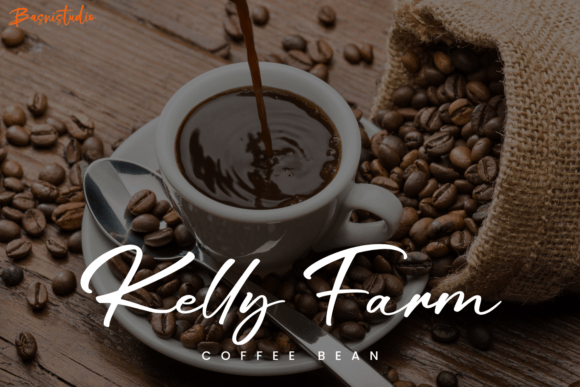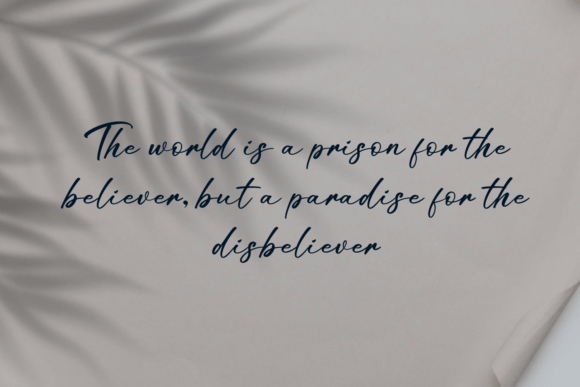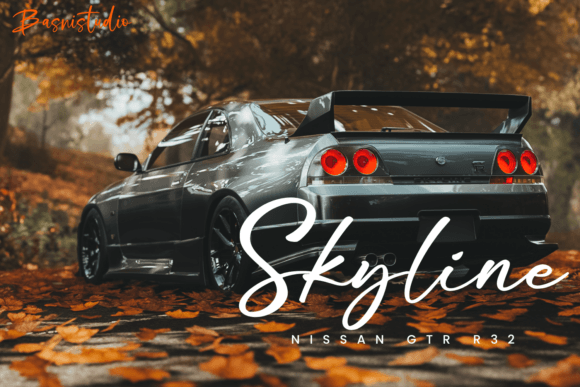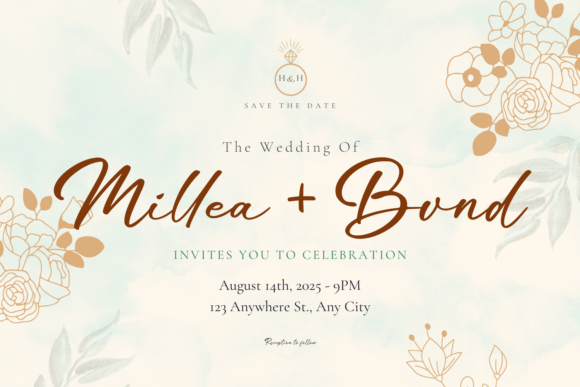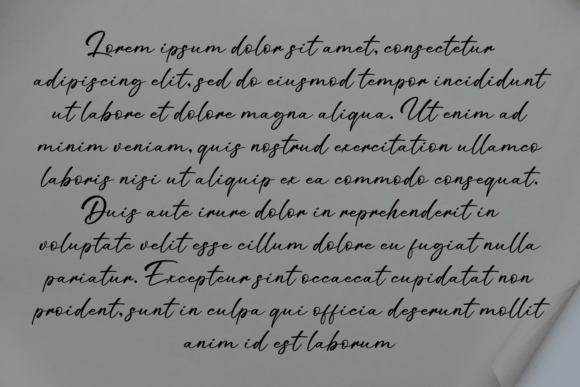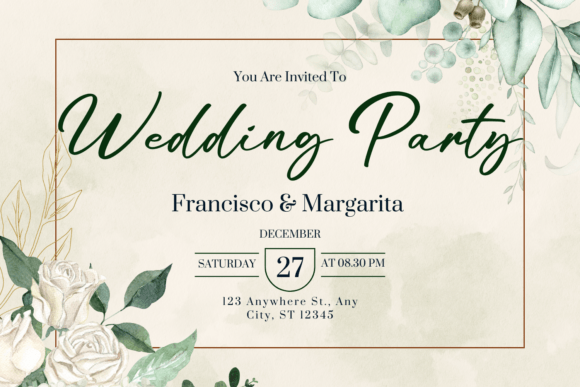
Introduction to Killian Sagitisa Font
As designers, we’ve all been there – staring at a blank page, trying to conjure up the perfect idea for a creative project. Sometimes, all it takes is the right font to spark inspiration. And that’s exactly what the Killian Sagitisa Font can do. With its elegant touch and timeless style, this flowing handwritten font is sure to captivate your audience and elevate your designs to the next level.
Whether you’re working on a personal project or a client’s design, having a high-quality font like Killian Sagitisa Font in your arsenal can make all the difference. It’s a valuable resource that can help you create stunning visuals, from logos to typography, and even provide a free download option for your convenience.
Key Features of Killian Sagitisa Font
- Unique, elegant script font with a transparent background, suitable for various design applications.
- Perfect for designers and artists looking for a sophisticated, handwritten font to elevate their creative project.
- Supports a wide range of languages, making it a versatile design resource for global creative projects.
Honest Review: Killian Sagitisa Font
I recently had the chance to experiment with the Killian Sagitisa Font, and I must say it’s been a great addition to my design resource collection. The free download was a bonus, and I was excited to see how it would perform in my creative project.
The first thing that caught my attention was the unique and elegant design of the font. The combination of sleek lines and sophisticated curves makes it perfect for titles and headings. ✨ I especially appreciate the transparent background, which gives me more flexibility when working with layered designs.
- Wide range of styles and weights to choose from
While the Killian Sagitisa Font is a solid choice, I did encounter a few limitations:
- Some of the styles may not be compatible with older software
- The font may not be as versatile as some other options
Overall, I’m impressed with the Killian Sagitisa Font, and I would definitely recommend it to designers looking for a high-quality, elegant font for their creative projects. ⚠️ Just be aware of the potential limitations, and you’ll be golden.
To get the most out of Killian Sagitisa Font, experiment with different font sizes, colors, and styles to create a unique visual identity for your design. Use the font in combination with other design elements, such as images or graphics, to add depth and interest to your design.
The Killian Sagitisa Font is ideal for a variety of creative projects, including branding, advertising, and publishing. Its modern and elegant design makes it perfect for creating eye-catching designs, such as social media graphics, posters, or flyers, that grab the attention of your target audience.
Is the Killian Sagitisa Font suitable for use in high-resolution designs, such as print materials or digital signage?
Yes, the Killian Sagitisa Font is designed to be highly legible and clear, even at high resolutions. It is suitable for use in various design applications, including print materials, digital signage, and web design. The font’s high-quality design ensures that it will remain clear and readable at various sizes and resolutions